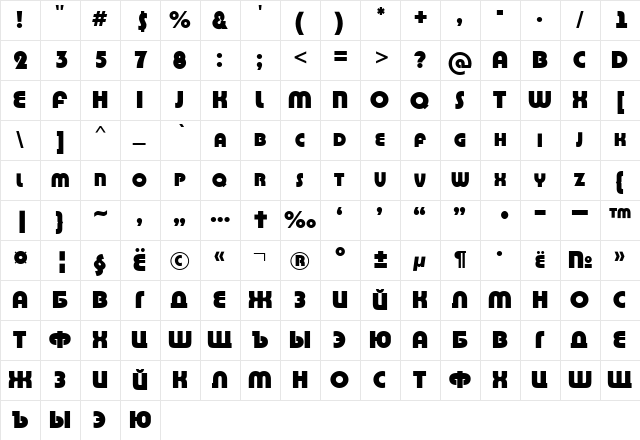
a_BighausTitul ExtraBold Font Preview
a_BighausTitul ExtraBold
Design Context for a_BighausTitul Typeface
a_BighausTitul offers clean, dependable letterforms without strong stylistic allegiance, making it a practical choice for designers who need flexibility. Its bold stroke weight gives it real presence on the page.